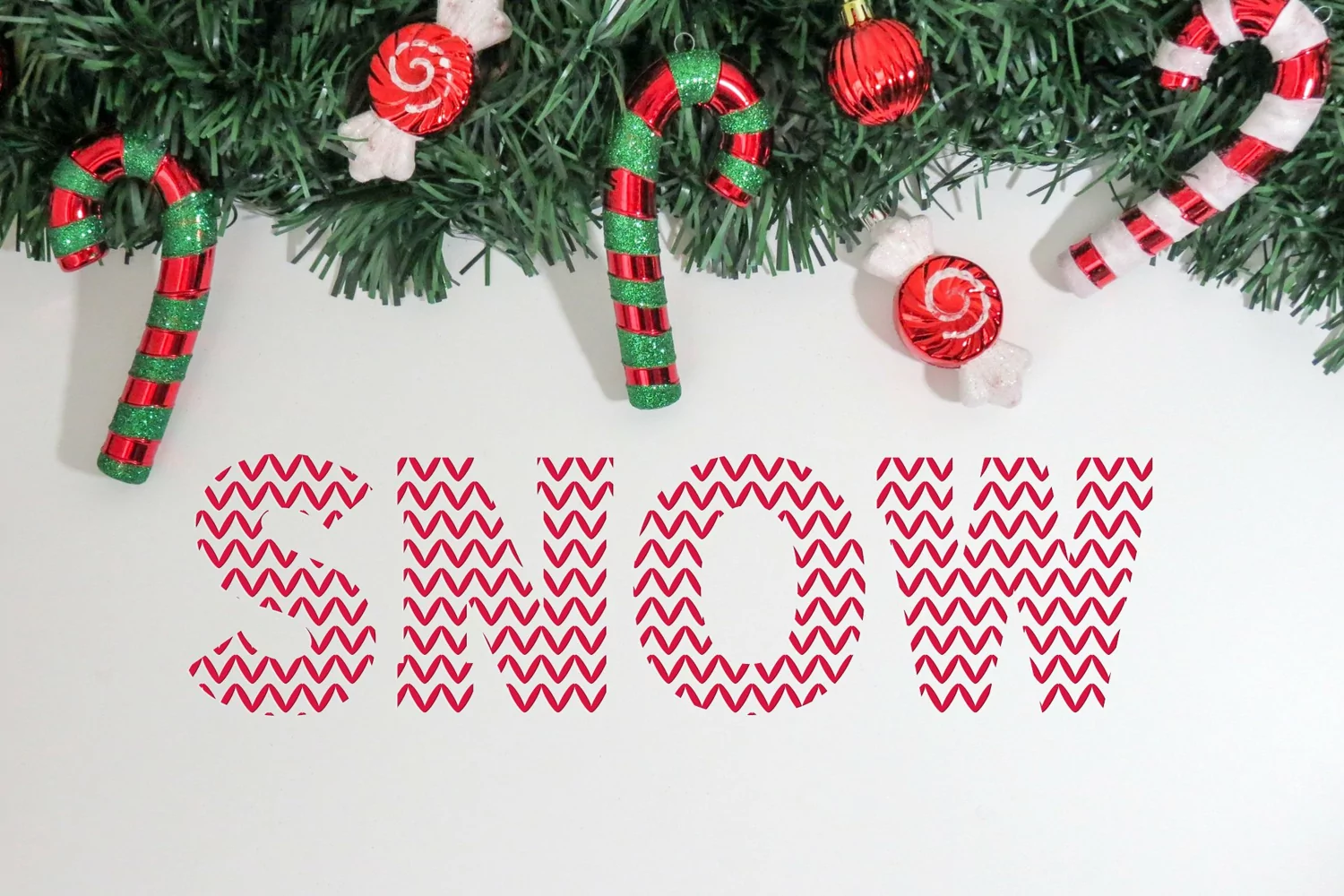
Knitted Ugly Sweater Font
Knitted Ugly Sweater Font is an incredibly unique and interesting decorative font. Warm and festive, this font is idea for designing each of your holiday creations.
Create christmas cards, T-shirts and other apparel, posters, and mugs..